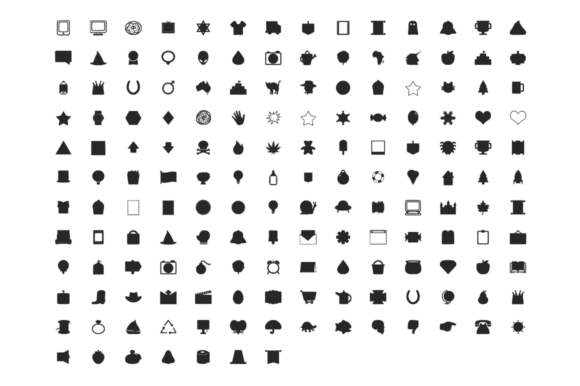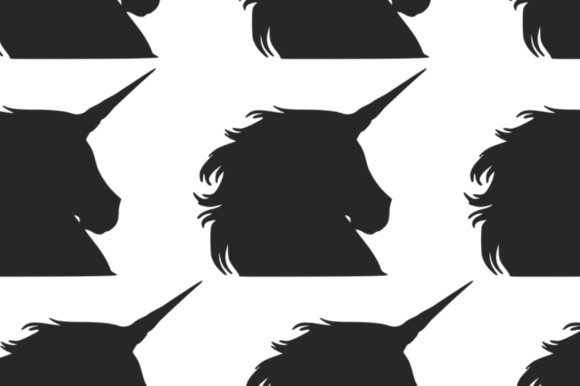
The Perfect Addition to Your Design Toolbox
Have you ever been stuck in front of a blank page, trying to come up with the perfect visual element to bring your design to life? You’re not alone. We’ve all been there, staring at a sea of generic icons and fonts, searching for that one thing that will make our project truly stand out. That’s where Bam’s Dings Font comes in – a game-changing collection of 165 glyphs designed to add a touch of personality to any design.
Whether you’re a seasoned designer or just starting out, Bam’s Dings Font is a valuable resource that can elevate your work and make it more engaging. With its wide range of fun silhouettes and useful icons, there’s something for everyone and any type of project. From logos to web pages, this font is sure to bring a unique touch to your design.
Bam’s Dings Font Key Features
- Unique Characteristics: This font features a distinctive dingbat design with intricate details, making it ideal for use in headings, titles, and other display typography where visual impact is crucial.
- Font Style: Bam’s Dings Font is available in regular and bold styles, allowing users to choose the perfect weight to suit their design needs.
Bam’s Dings Font Review
Overall, I’d say Bam’s Dings Font is a fun, quirky addition to any design project. It’s definitely a statement piece! ✨
- Unique aesthetic: Bam’s Dings Font has a really distinct, playful feel to it that can add some much-needed personality to a design. ✨
- Good for headings: The font’s bold, attention-grabbing qualities make it perfect for headings and titles. ✨
- Customizable: Bam’s Dings Font offers a range of customization options, from font size to color, so you can really make it your own. ✨
- Limited legibility: Unfortunately, the font’s quirky design can make it a bit difficult to read, especially at smaller sizes. ⚠️
- Not ideal for body text: While the font is great for headings, it’s not the best choice for body text due to its limited legibility and unique character set. ⚠️
Bam’s Dings Font is a fun, attention-grabbing font that’s perfect for adding some personality to a design. While it has its limitations, it’s definitely a great choice for headings and titles. Just be sure to use it in moderation and pair it with a clear, readable font for body text.
Bam’s Dings Font Practical Application Guide
Bam’s Dings Font is perfect for:
- Children’s book illustrations and designs
- Playful advertisements and marketing materials Alternatives to Bam’s Dings Font for Designers